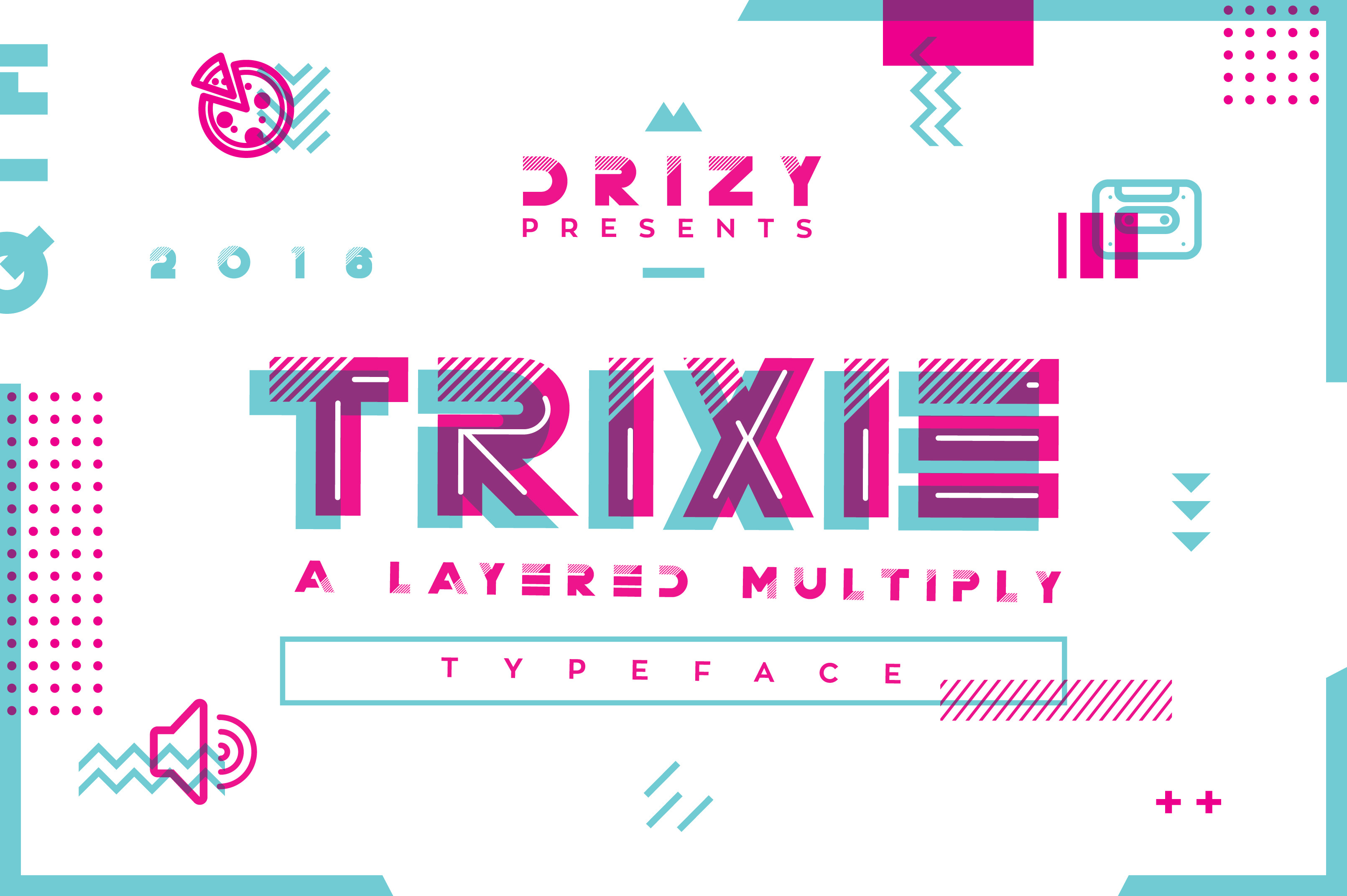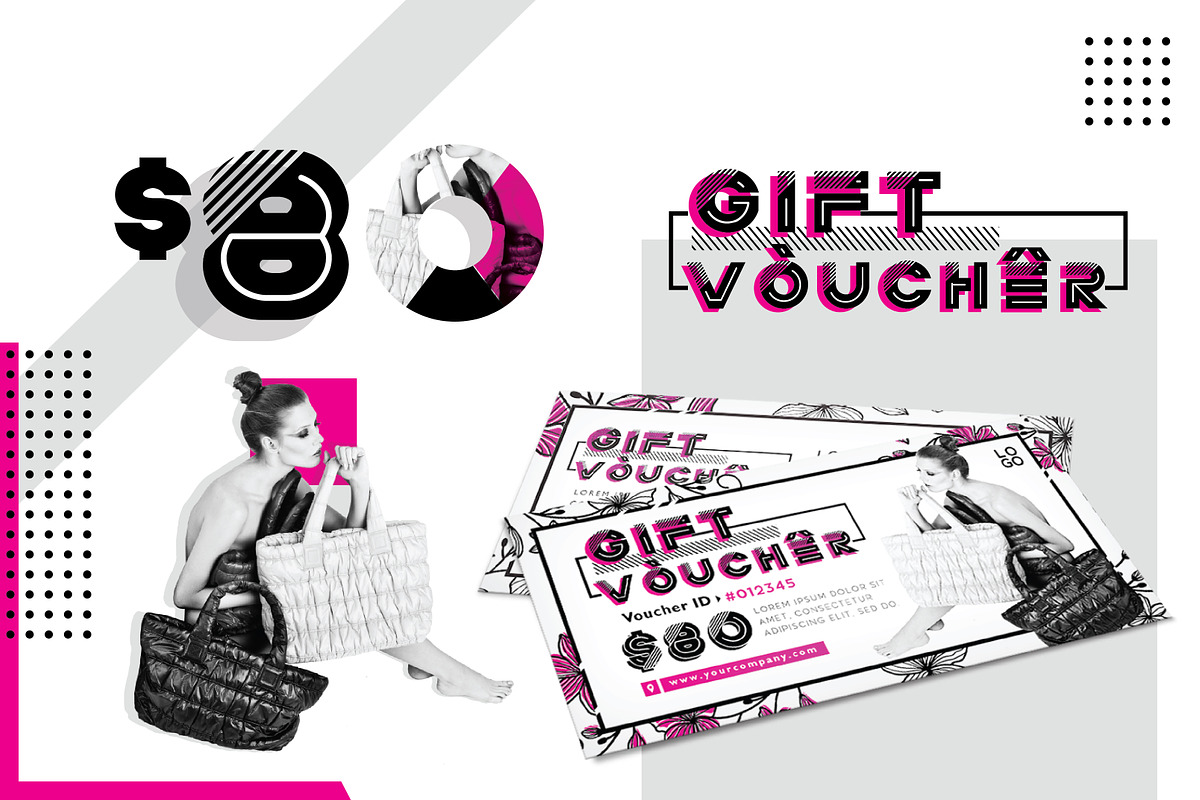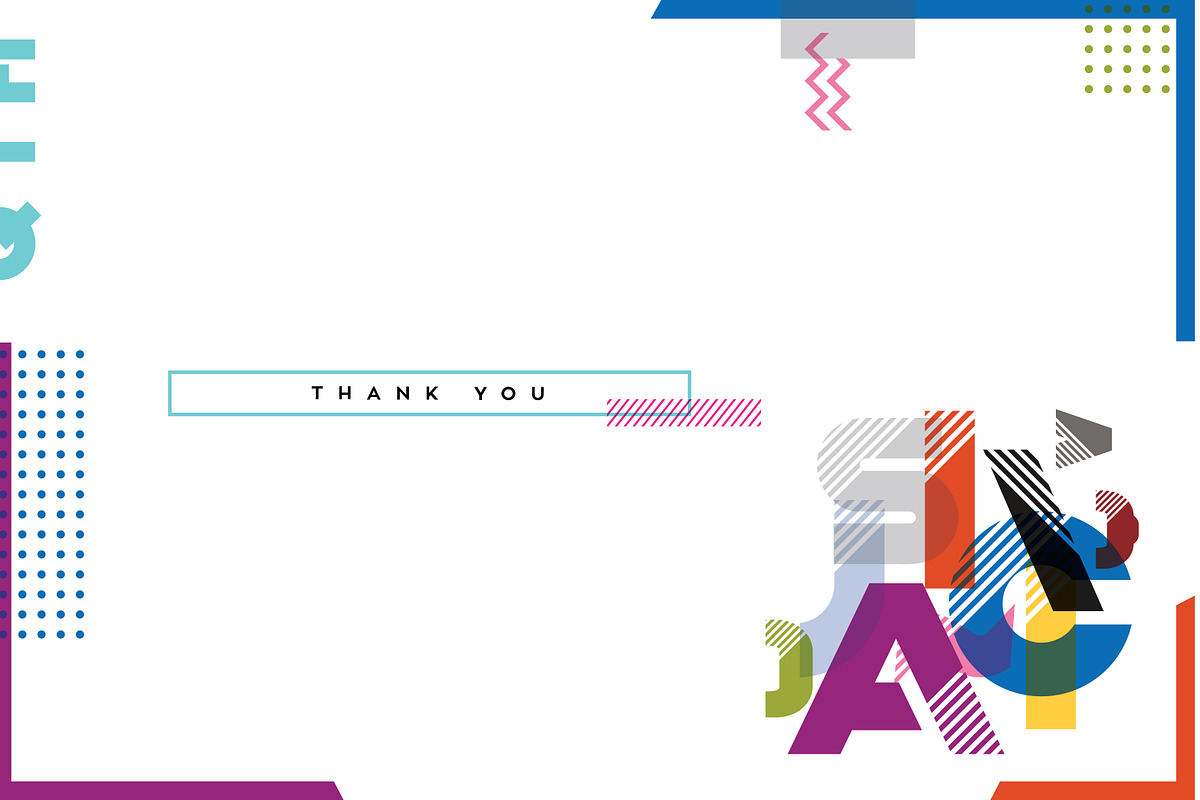
Trixie | A Layered Multiply Typeface
Introducing Trixie!! a new layered multiply typeface, inspired from geometric and multiply effect. Trixie is a modern, futuristic, minimal and clean font layer with upper & lower case characters, multilingual letters, numbers, and punctuation. This font makes way for the creativity of each and every one. Modify, give it colors and blending to instantly give your works a futuristic feel. Trixie is great for creating eye-catching headlines and applicable for any type of graphic design web, print, motion graphics, perfect for t-shirts and other items like logos, poster/ flyer, branding, packaging, pictograms, etc.
Trixie comes with a full set shadow, regular, line light and completed layer. Included is a bonus extras ‘Icon Pack’ and ‘Flyer & Voucher Template’.